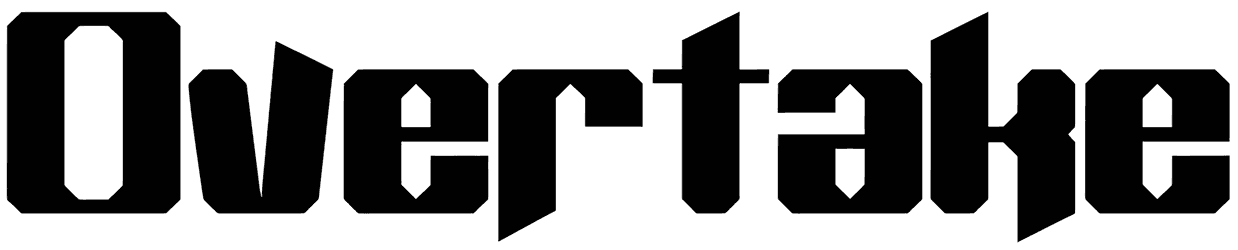
Overtake Font
Let us introduce a distinct and interesting letter face named Overtake. This unique techno font covers three variations that will make up for the lack of numbers and punctuation marks. This would be an ideal choice for varied projects such as headlines, wordmarks, posters, movie titles, or the like, and would be impressive.